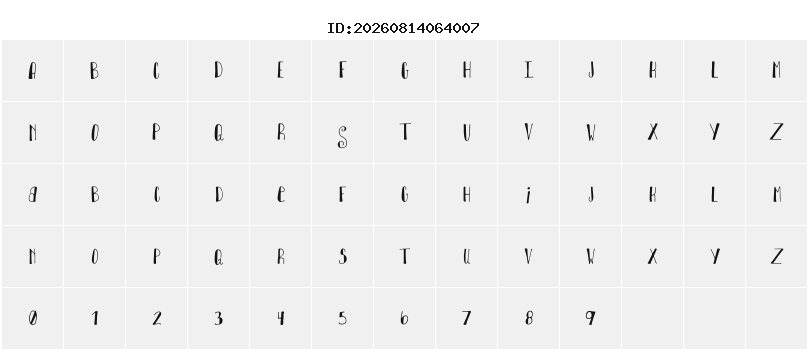
• Font Name: Super Sweet
• Full Font Name: Super Sweet Regular
About Super Sweet.otf
Super Sweet.otf is a modern, elegant sans-serif font designed for ultimate readability and visual harmony. Perfect for branding, headlines, web design, and print materials.